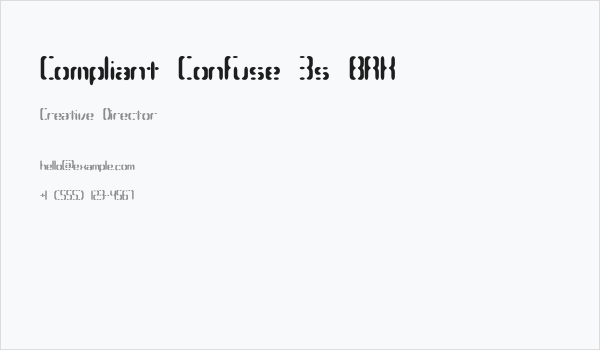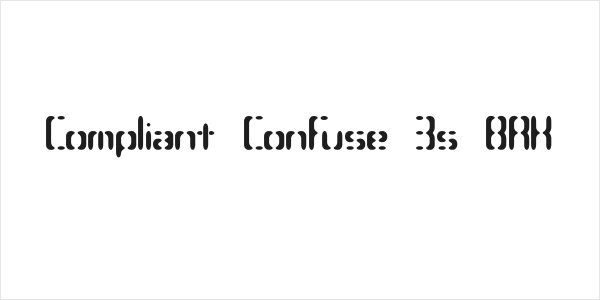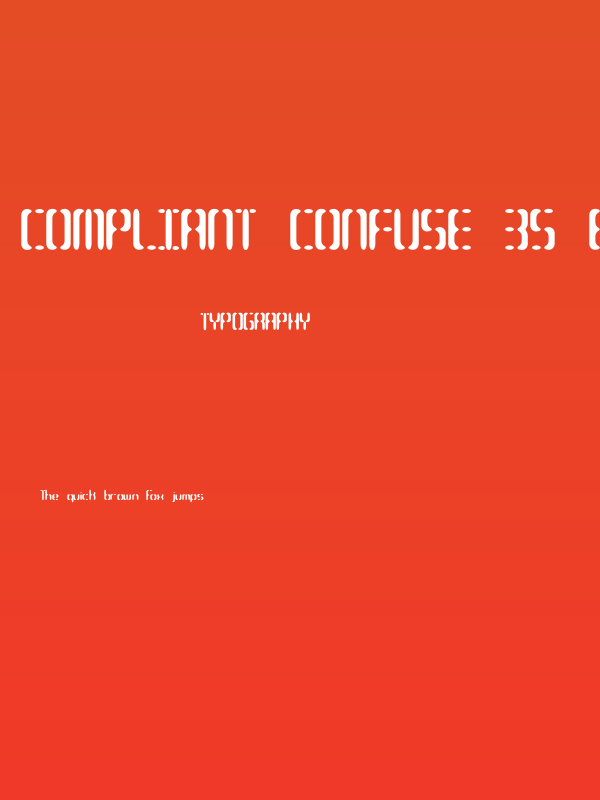
Compliant Confuse 3s BRK Font
Compliant Confuse 3s BRK Description
This font features a unique and modern design with a dotted and segmented appearance, creating a futuristic and digital aesthetic. The characters are composed of bold, rounded segments that form each letter and number, giving it a distinct and eye-catching style. The uppercase and lowercase letters maintain a consistent design, with the uppercase being slightly taller and more pronounced. Numbers and special characters follow the same segmented pattern, ensuring uniformity across the font. This design is particularly striking and would stand out in any digital or tech-themed project.
| Proposed Projects | Ideal for tech-themed designs, digital art, futuristic branding, and innovative product packaging. |